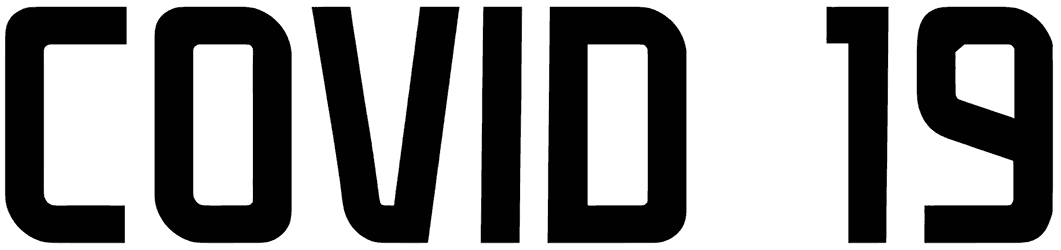
Covid 19 Font
Designed byPeter Wiegel
Introducing Covid-19, a bold, simple sans serif font that comes with a full set of tall characters, attracting all the attention to itself. It will give you a chance to create outstanding designs without any difficulty.
This font is versatile and can be used for movie posters, newspaper headlines, sporting events, apparel prints, digital signage, and many more. So we recommend you choose it beyond the shadow of a doubt.